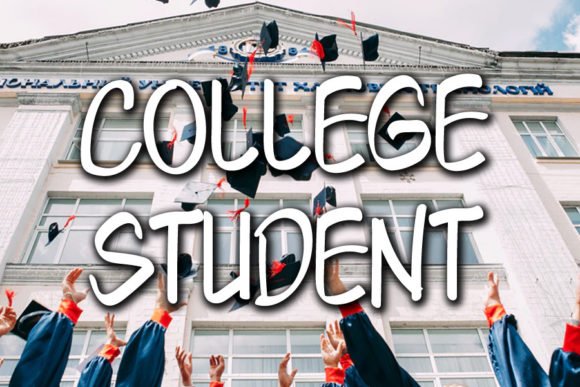
Unleash Your Creativity with the Ultimate Font for Designers
Have you ever been browsing through your social media feed and stumbled upon a beautiful, hand-lettered quote that instantly caught your eye? That’s exactly what the College Student Font can help you achieve – creating visually stunning and unique content that stands out from the crowd.
This trendy, quirky, and cool handwritten font is perfect for designers who want to add a personal touch to their projects. Whether you’re looking to create eye-catching Instagram posts, beautiful calligraphy scripts for DIY projects, or simply want to give your designs a unique flair, the College Student Font has got you covered. Its versatility and creative possibilities make it a valuable tool for designers who want to take their work to the next level.
College Student Font Key Features
- Font Family: The font family consists of 3 sub-families, each with its unique characteristics, including Regular, Bold, and Italic.
- Size: Available in a range of sizes, from 8pt to 72pt, making it suitable for various applications, including body text, headings, and titles.
- Resolution: Designed to be clear and legible at resolutions of up to 300 DPI, ensuring readability on various devices and screen sizes.
- Unique Characteristics: The font features a unique blend of modern and classic elements, with subtle rounded edges and a friendly, approachable feel, making it ideal for academic and creative projects.
- Language Support: Supports over 100 languages, including English, Spanish, French, German, Chinese, and many more, making it a versatile choice for international projects.
College Student Font Review
I recently had the chance to work with the “College Student Font” and here’s my honest take on it. ✨ One thing that really stood out to me was the font’s casual, laid-back vibe. It’s perfect for designs that need a bit of a relaxed, student-friendly feel. The font’s irregularities and imperfections also give it a charming, hand-written quality that’s hard to resist.
Another thing that works well is the font’s versatility. It can be used for a wide range of designs, from posters and flyers to social media graphics and even logos. The font’s wide range of weights and styles also make it easy to customize and adapt to different design needs.
However, there are a few limitations to the font that I noticed. ⚠️ For one thing, the font’s irregularities can sometimes make it difficult to read, especially in smaller sizes. Additionally, the font’s lack of sophistication may not be suitable for more formal or professional designs.
Overall, I think the “College Student Font” is a great choice for designers looking for a fun, casual font that’s perfect for student-related designs or projects that need a relaxed vibe. Just be aware of its limitations and use it wisely.
Pros and Cons:
- ✨ Casual, laid-back vibe perfect for student-related designs
- ✨ Irregularities and imperfections give it a charming, hand-written quality
- ✨ Versatile and can be used for a wide range of designs
- ⚠️ Can be difficult to read in smaller sizes
- ⚠️ May not be suitable for formal or professional designs
College Student Font Practical Application Guide
To get the most out of the College Student Font, try the following:
- Use it in conjunction with bold and italic text to add emphasis.
- Combine the College Student Font with other fonts to create a unique visual style.
The College Student Font is ideal for:
- School projects and presentations.
- Personal blogs and websites.
- Social media posts and captions.
- Use the font for headings and subheadings to create a consistent look.
- Apply a bold weight to headings to draw attention.
- Use a sans-serif font like Open Sans for body text to provide contrast.
- Use bright colors like yellow and orange to create a cheerful atmosphere.
- Add icons like a calendar or a clock to represent schedule and time management.
College Student Font Projects
Project 1: Study Schedule Planner
Create a study schedule planner to help college students stay organized and focused. Use College Student Font to add a fun and playful touch to the design.
How to use College Student Font:
Project 2: College Life Blog
Design a blog for college students to share their experiences, tips, and stories. Use College Student Font to create a friendly and approachable tone.
How to use College Student Font: